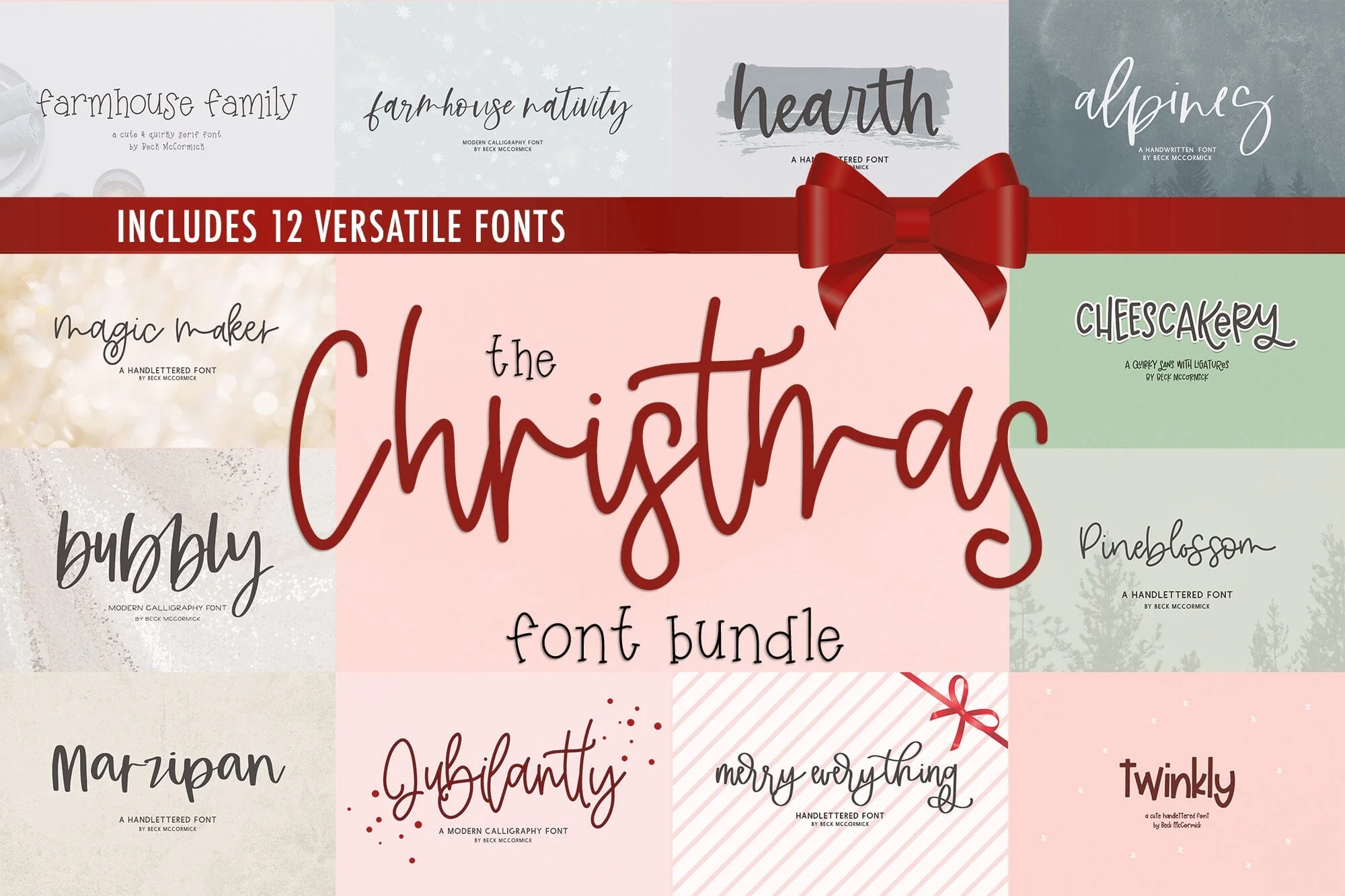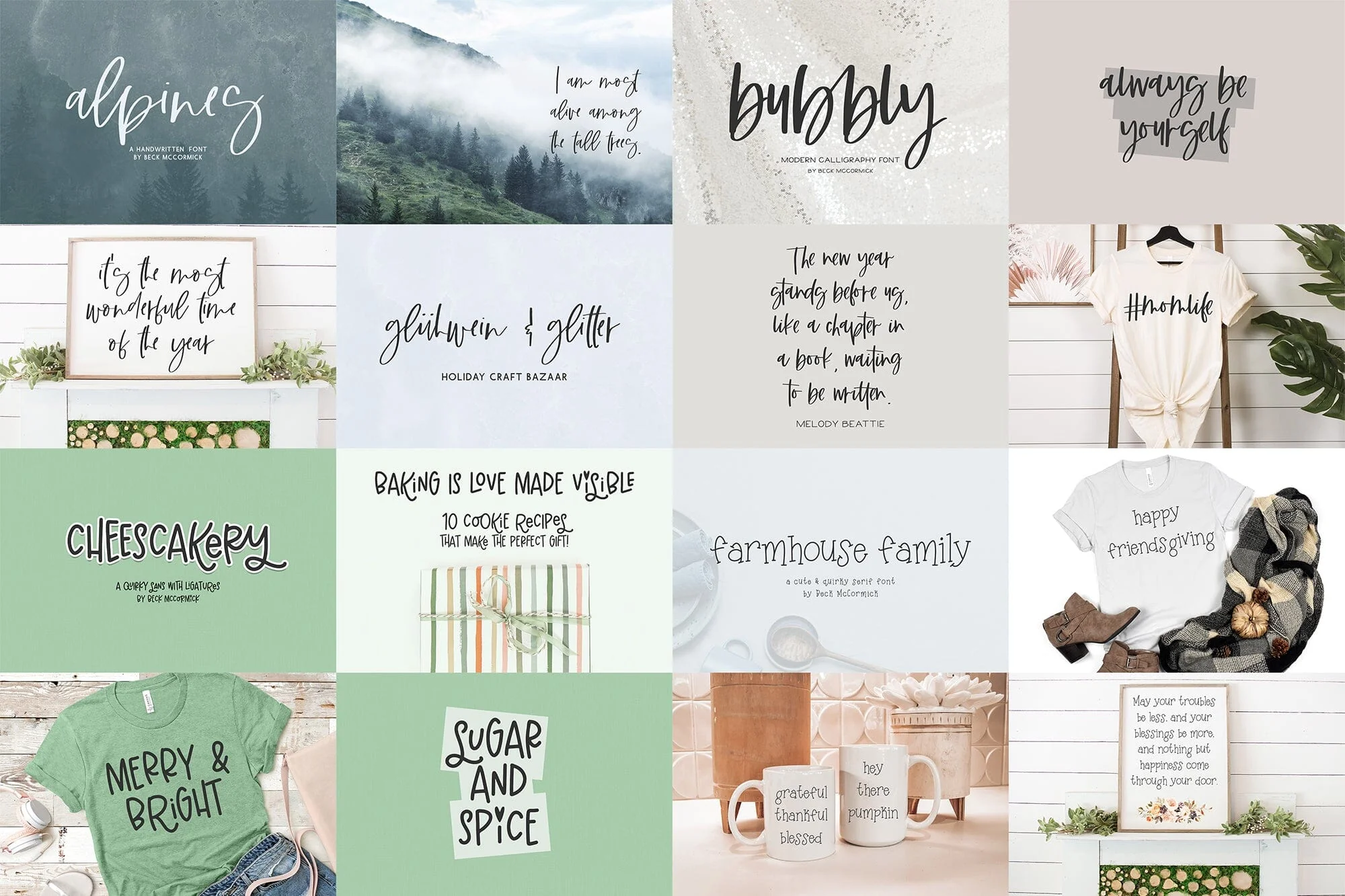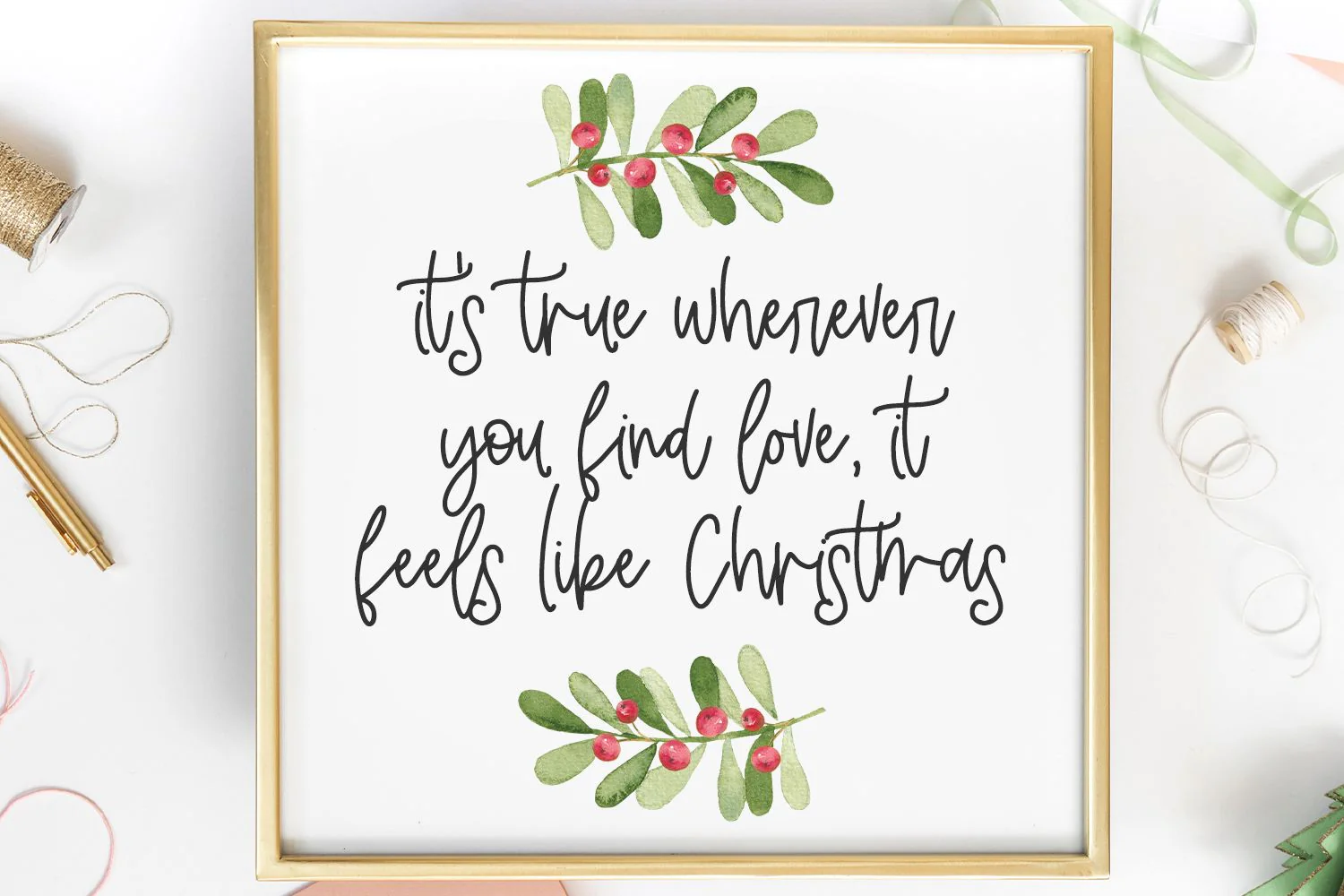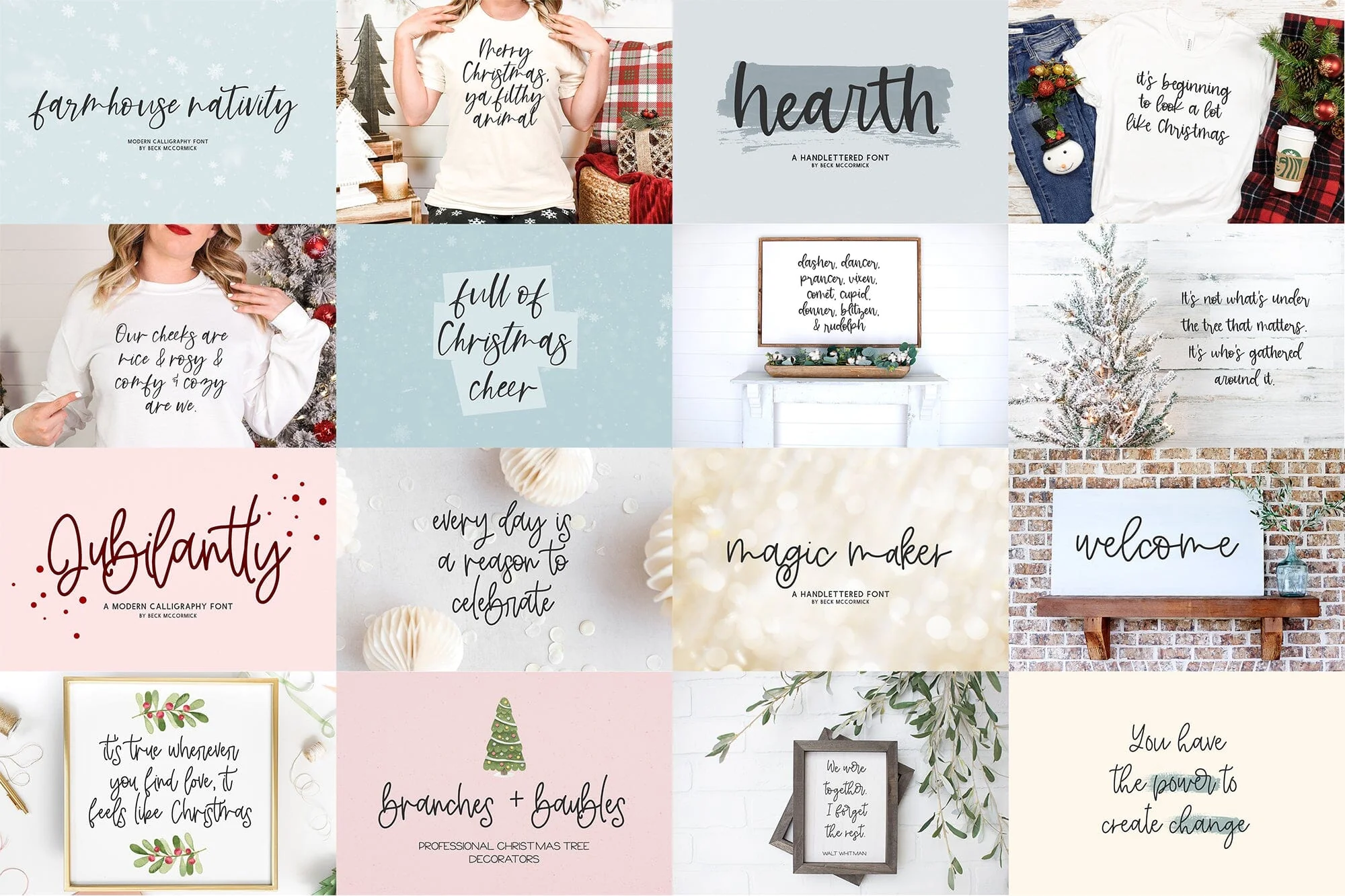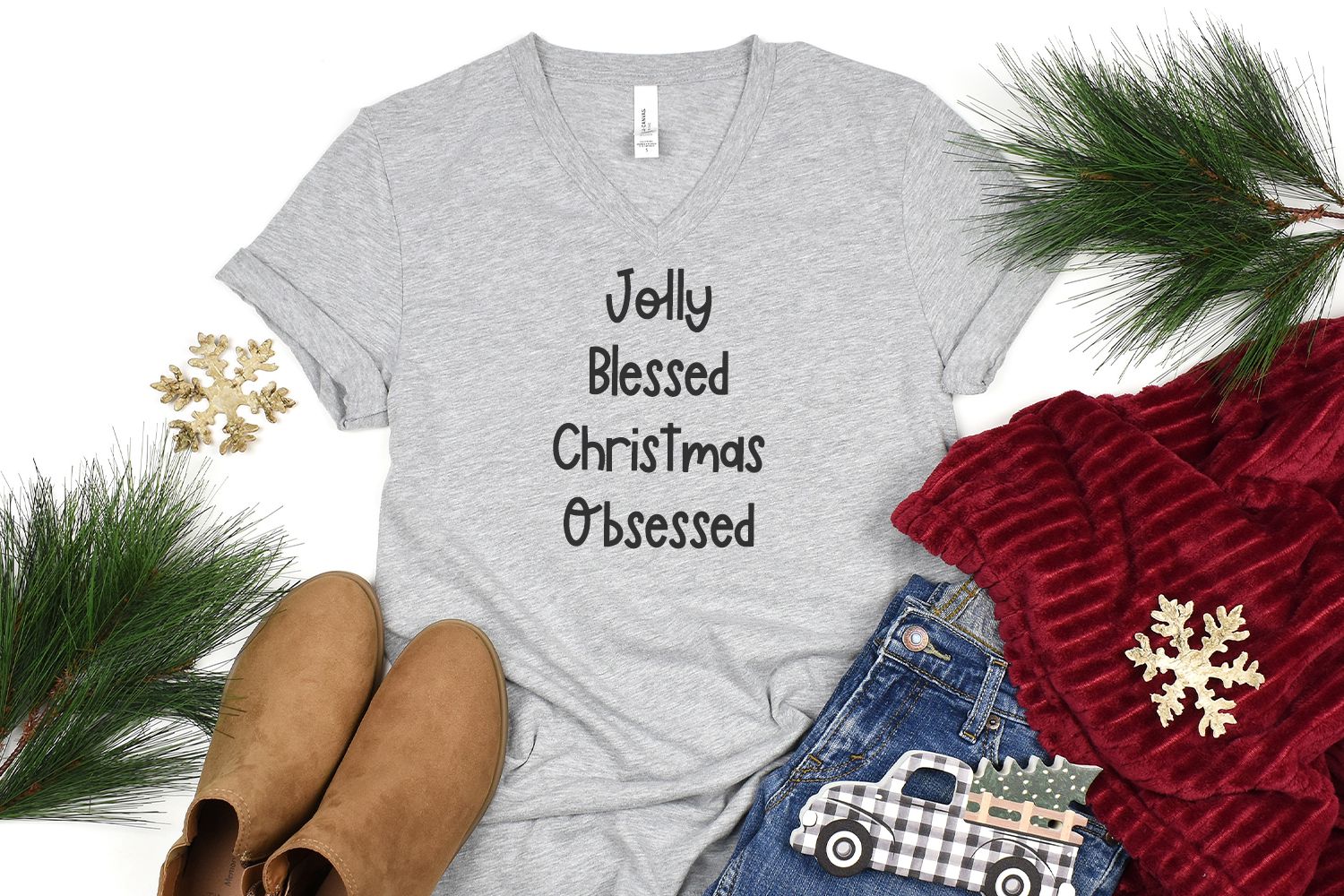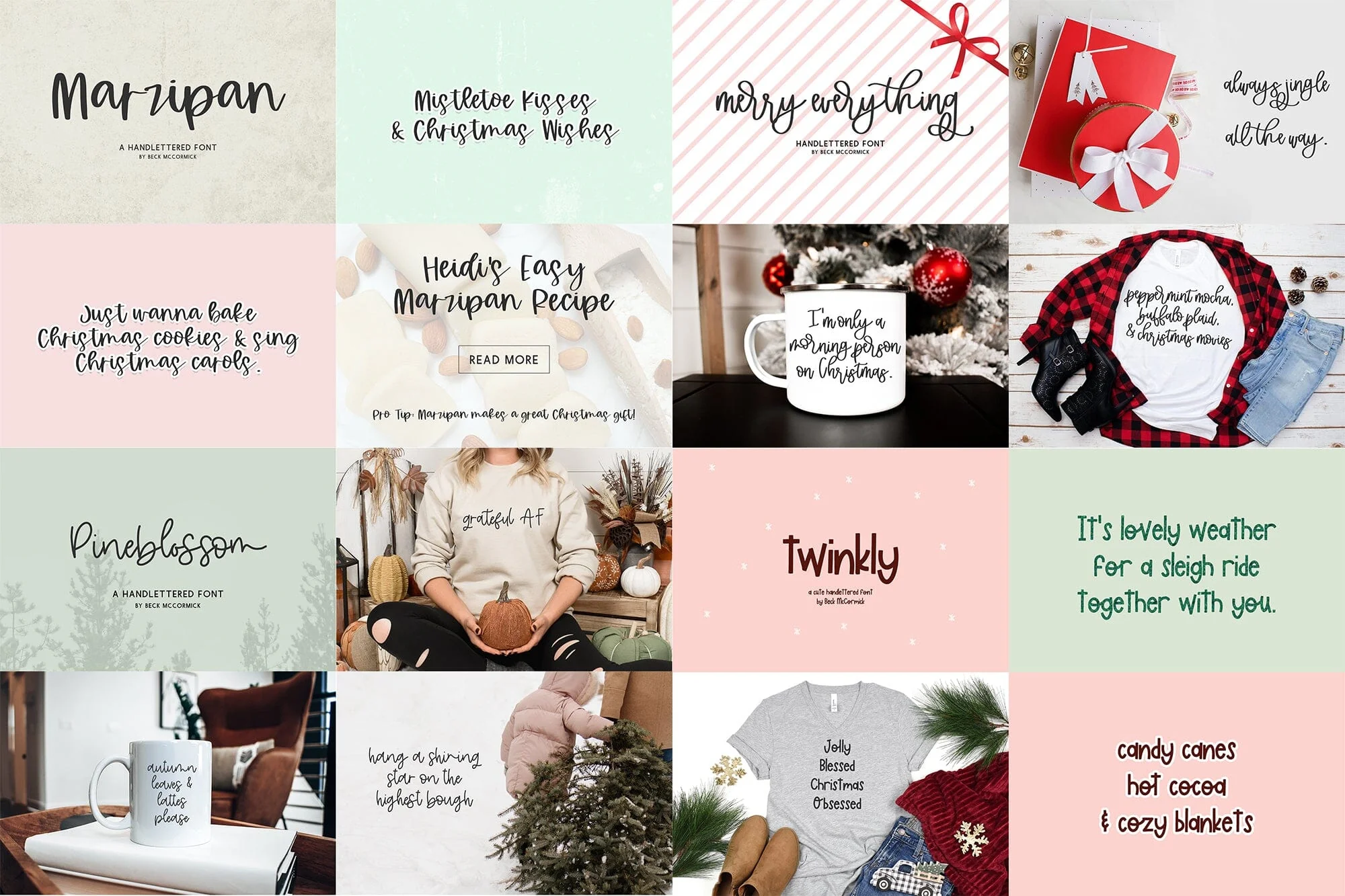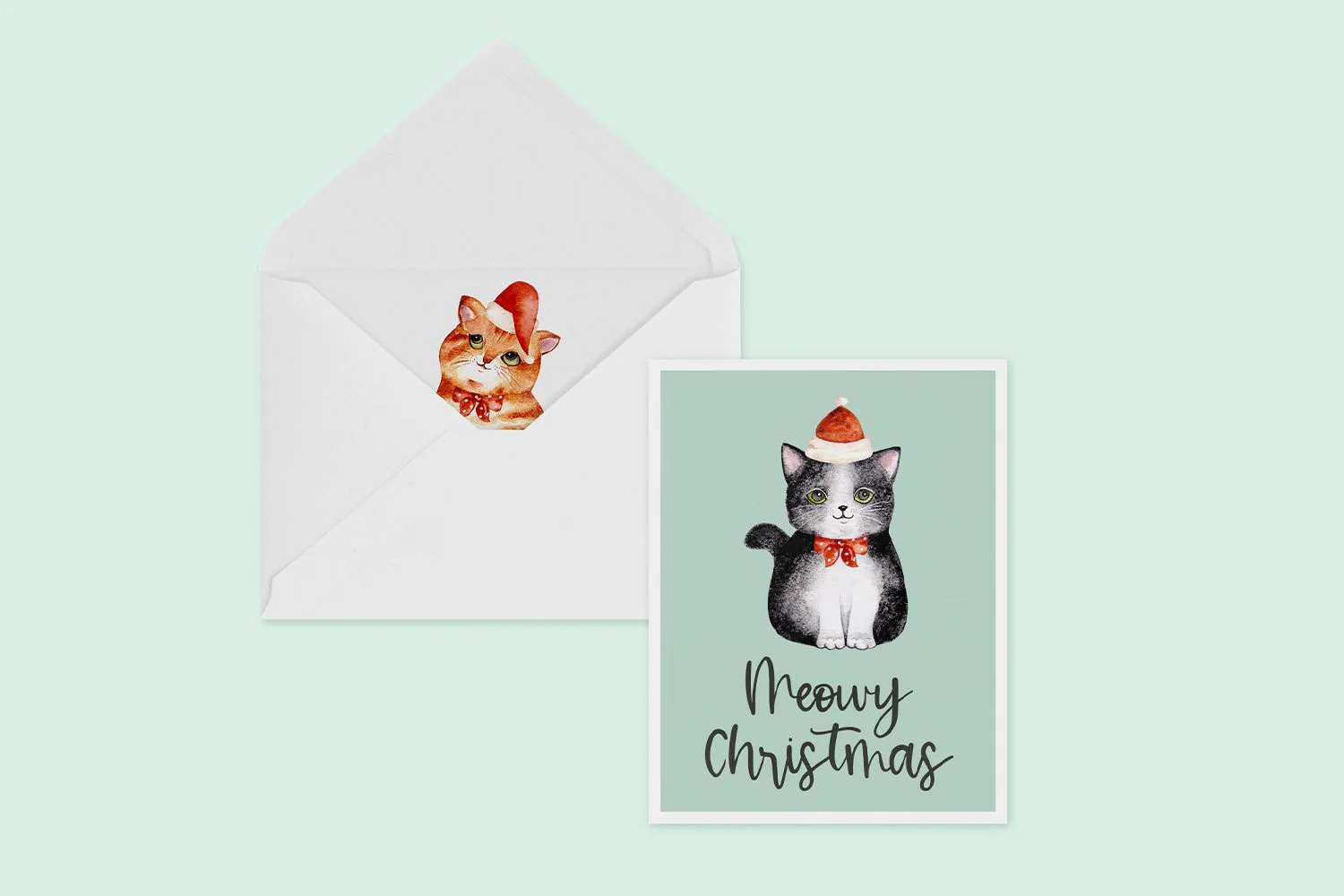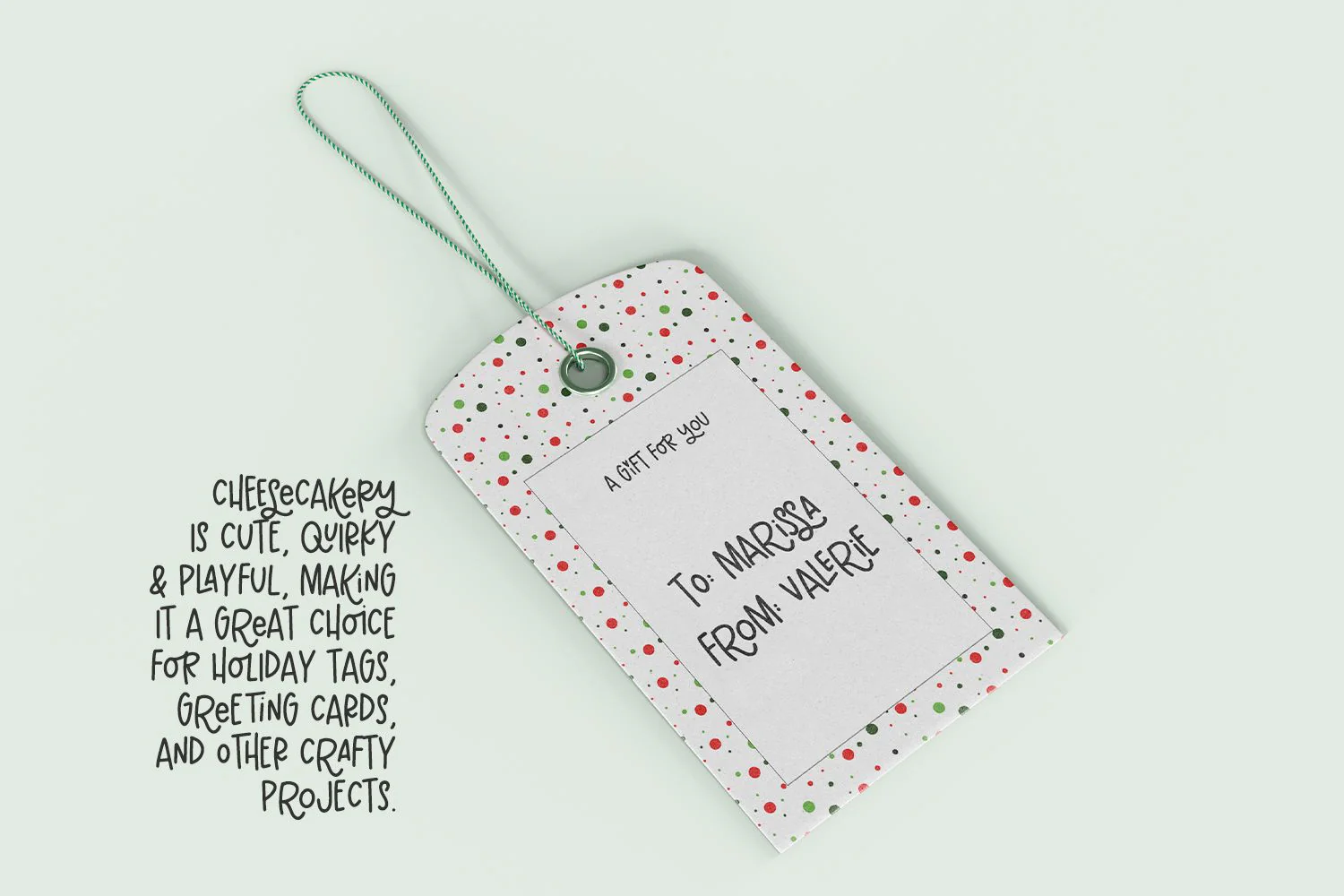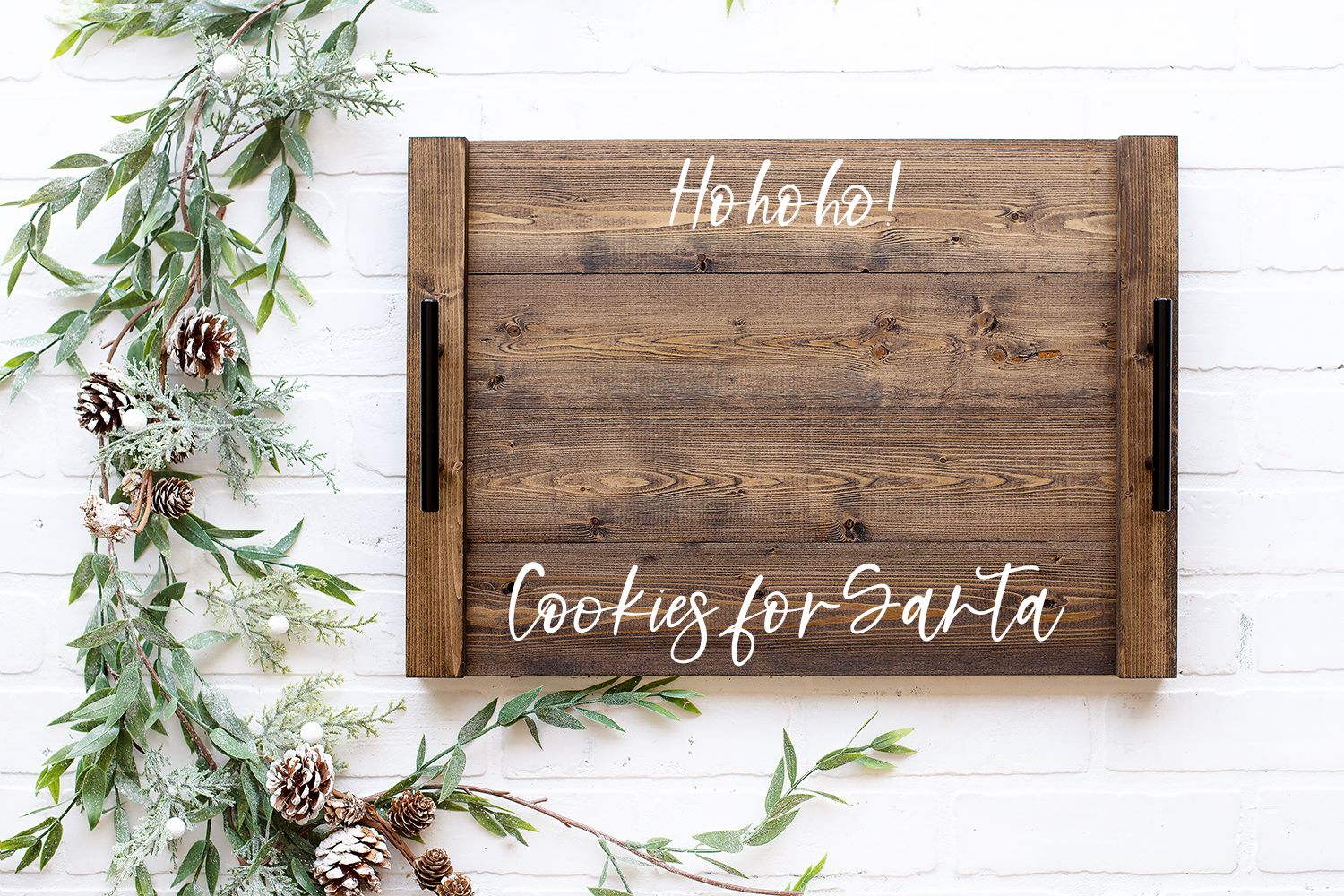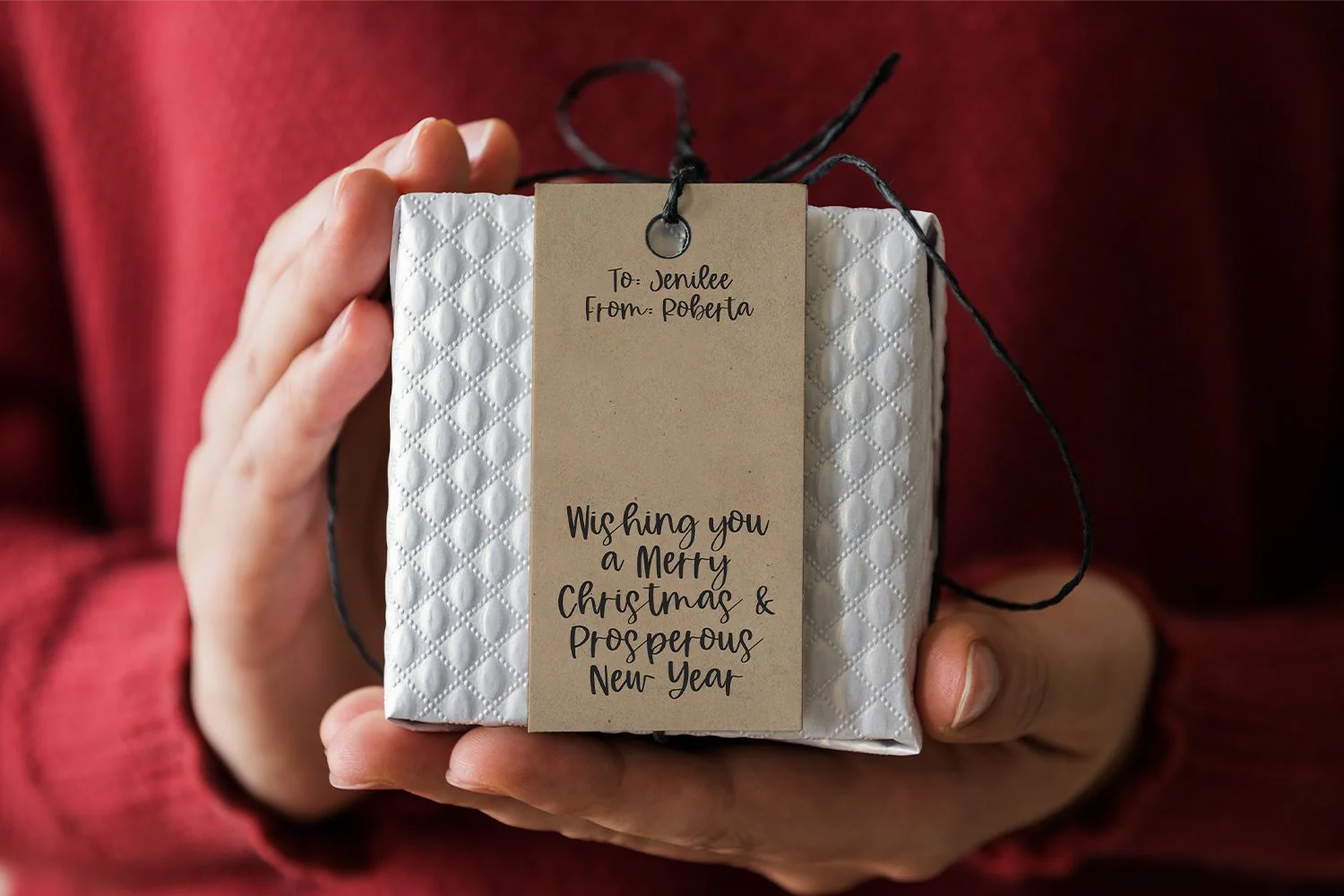
The Christmas Font Bundle
āTis the seasonā¦for fonts! This font bundle is perfect for everything holiday-related - enjoy 12 versatile handwritten fonts that can be used for Thanksgiving, Hanukkah, Christmas, and the New Year. (Pssstā¦theyāre great for non-holiday related things, too, like Goodnotes Fonts or Wedding Fonts!)
This bundle script fonts, serif fonts, and sans fonts for a variety of mix and match options. Use for greeting cards, holiday gift tags, home decor for any holiday! You can even use these fonts for crafting with your Cricut or Silhouette machine to DIY your holiday decor and make gift-giving a total breeze.
This bundle includes:
- Alpines Script
- Bubbly Script
- Cheesecakery Sans
- Farmhouse Family Serif
- Farmhouse Nativity Script
- Hearth Script
- Jubilantly Script
- Magic Maker Script
- Marzipan Script
- Merry Everything Script
- Pineblossom Script
- Twinkly Sans